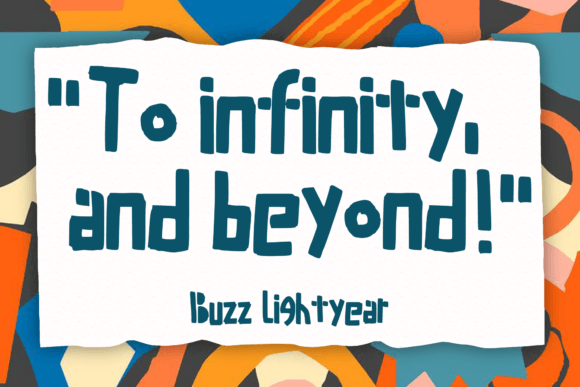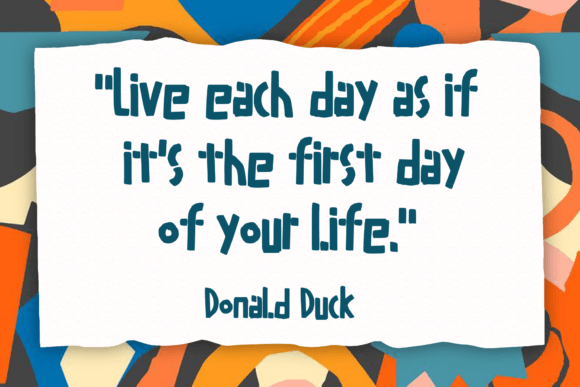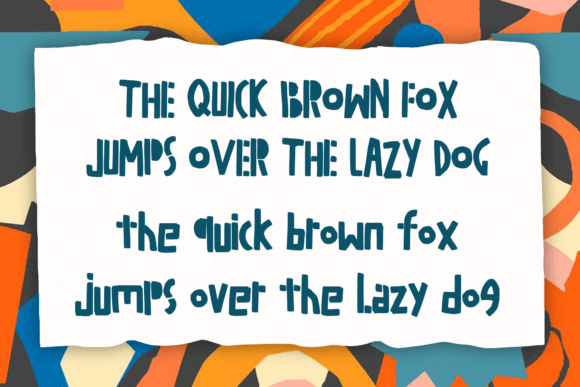
Discover the Whimsical World of Aztec Tribe Font
Are you a designer, crafter, or DIY enthusiast looking for a font that can add a touch of playfulness and creativity to your projects? Look no further than the Aztec Tribe Font! This fun and artsy display font is perfect for a wide range of applications, from t-shirts and kids’ book designs to greeting cards, stickers, and posters.
What Makes Aztec Tribe Font So Special?
The Aztec Tribe Font is a versatile and charming font that can instantly elevate your designs with its unique and whimsical style. Its incredibly versatile style makes it suitable for various projects, allowing you to experiment with different creative ideas. Whether you’re designing for a children’s book, creating custom apparel, or crafting handmade cards, this font is sure to add a delightful touch.
Key Features of Aztec Tribe Font
- Fun and Artsy Design: The Aztec Tribe Font boasts a fun and artsy design that is sure to capture attention and spark imagination.
- Versatile Style: Its versatile style makes it perfect for a wide range of projects, from playful kids’ designs to more sophisticated adult-oriented creations.
- Easy to Read: Despite its artistic and whimsical nature, the Aztec Tribe Font remains easy to read, making it practical for use in various contexts.
- Customizable: You can easily customize the font to fit your project’s needs, experimenting with different sizes, colors, and styles.
Uses of Aztec Tribe Font
The possibilities are endless when it comes to using the Aztec Tribe Font. Here are some ideas to get you started:
- T-Shirts and Apparel: Add a fun and quirky touch to your custom t-shirts, hoodies, and other apparel.
- Kids’ Book Designs: Create engaging and interactive kids’ books with this delightful font.
- Greeting Cards: Design beautiful and unique greeting cards for special occasions like birthdays, holidays, and more.
- Stickers and Posters: Use the Aztec Tribe Font to create eye-catching stickers and posters that are sure to grab attention.
Tips for Using Aztec Tribe Font Effectively
To get the most out of the Aztec Tribe Font, consider the following tips:
- Experiment with Colors: Play around with different colors to find the perfect combination that matches your project’s theme.
- Mix and Match: Combine the Aztec Tribe Font with other fonts to create a unique and visually appealing design.
- Keep it Simple: Don’t overcomplicate your design – sometimes, less is more, and the simplicity of the font can be its most striking feature.
In conclusion, the Aztec Tribe Font is a fantastic addition to any designer’s or crafter’s toolkit. Its fun, artsy, and versatile style makes it perfect for a wide range of projects, from kids’ designs to more sophisticated creations. With its ease of use and customization options, you can let your creativity shine and produce stunning designs that are sure to delight. So why wait? Fall in love with the Aztec Tribe Font and start creating your own lovely designs today!